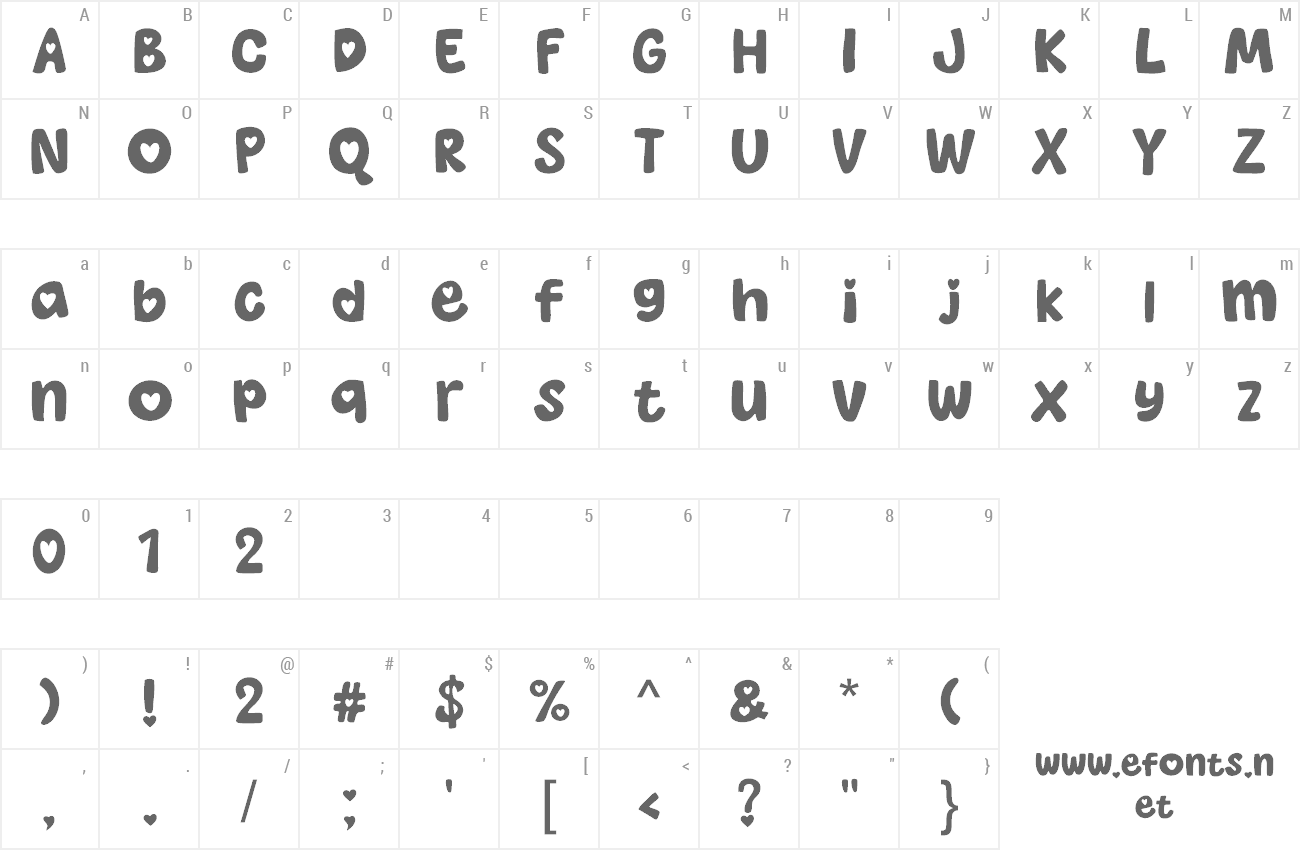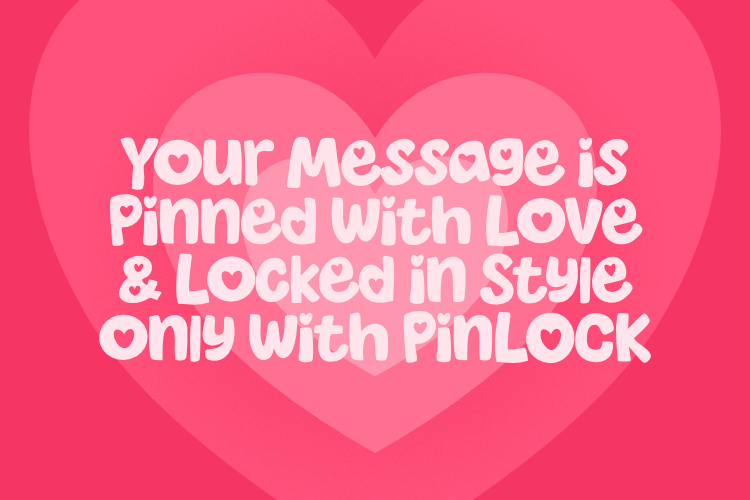
| Font name: | MGF Pinlock |
| Author: | Mighty Gummy Factory |
| Note by Mighty Gummy Factory | |
PINLOCK is a lovely, fun bold font with rounded forms and heart-filled character. It�s the perfect choice for designs that want to feel soft, sweet, and full of charm � from Valentine�s cards to kid-friendly packaging and romantic social media posts. With a bubbly structure and playful personality, PINLOCK brings warmth and love to every letter, making it ideal for cute design lovers, hobby crafters, and professional creatives alike. !!!WARNING!!! By choosing to install or use this font, you automatically accept the licensing terms provided Free to use for personal projects only For commercial use, monetized projects, or to obtain a custom license, please contact us first at: mightygummyfactory@gmail.com Any commercial use of this font under a 'Personal Use' license without our permission will result in a penalty that we will enforce Kind Regards, Mighty Gummy Factory, 2025 |